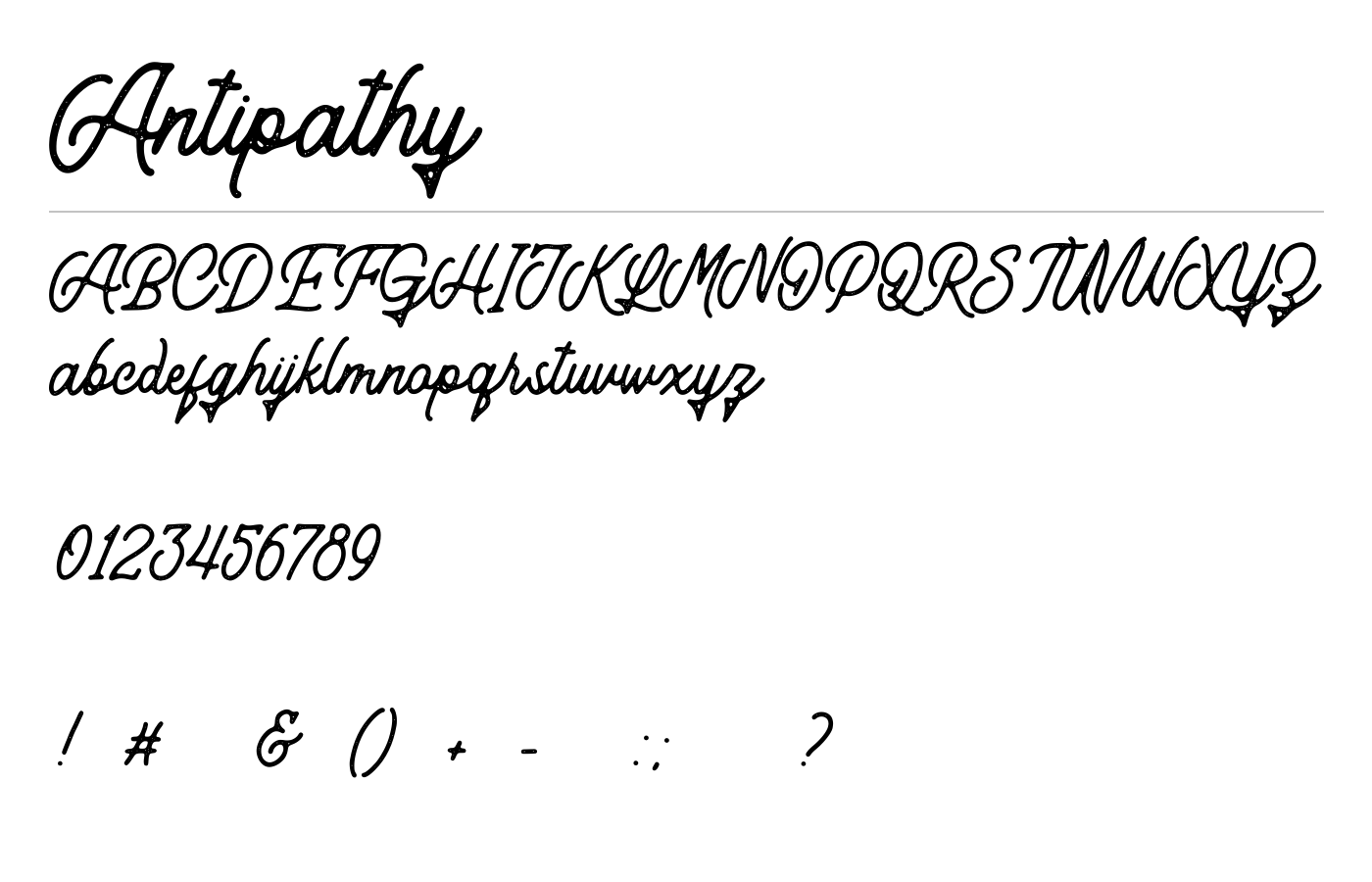
Antipathy is a stylish script font with a casual, handwritten feel, featuring smooth, flowing strokes and distinctive, slightly quirky letterforms that add personality and charm. Its lightweight, elegant design works well for creative branding, invitations, and headline purposes where a friendly yet sophisticated touch is desired. This font brings warmth and approachability, making it perfect for projects that want to convey individuality and artistic flair.
Antipathy Font
About Antipathy Font